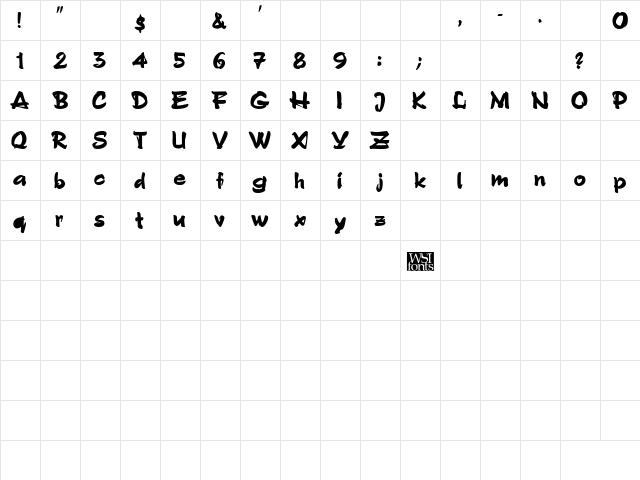
GrunionScript Bold Font Preview
GrunionScript Bold
GrunionScript Bold Font Details
Design Context for GrunionScript Typeface
GrunionScript flows with the natural rhythm of handwritten lettering, making it ideal for designs that call for warmth and personal expression. Its bold stroke weight gives it real presence on the page.